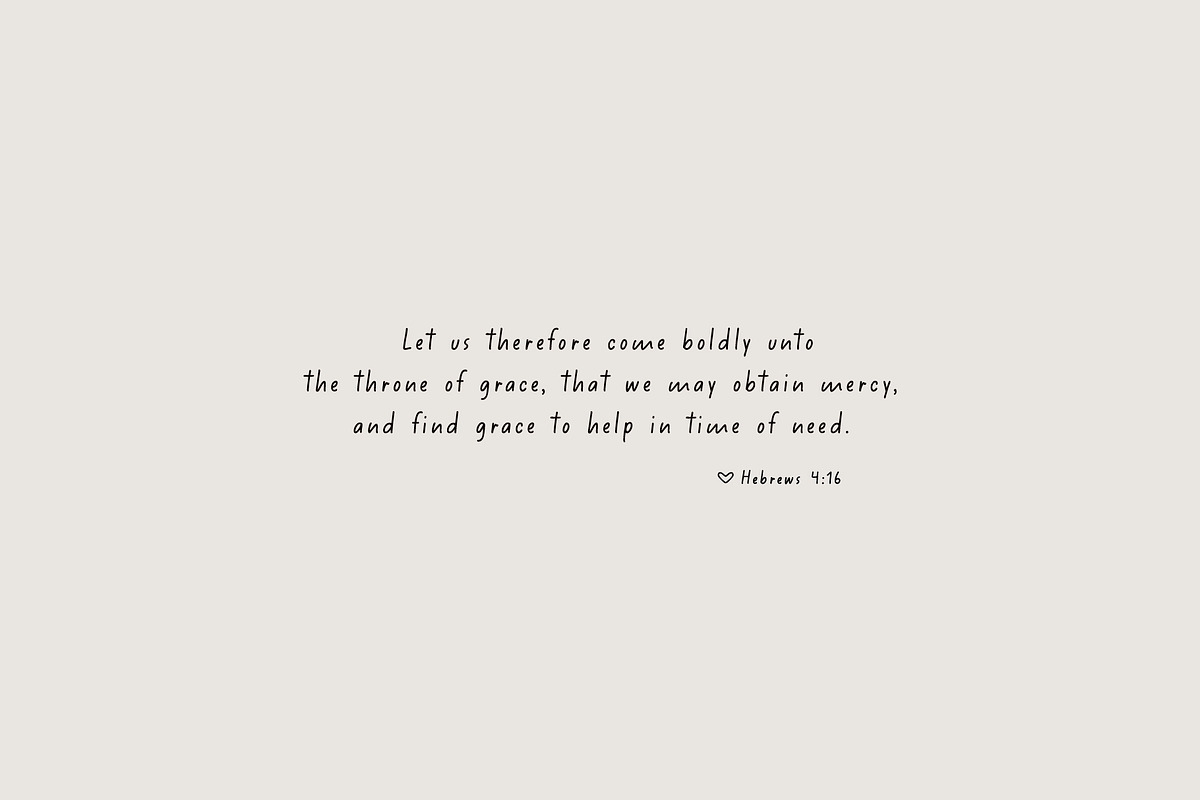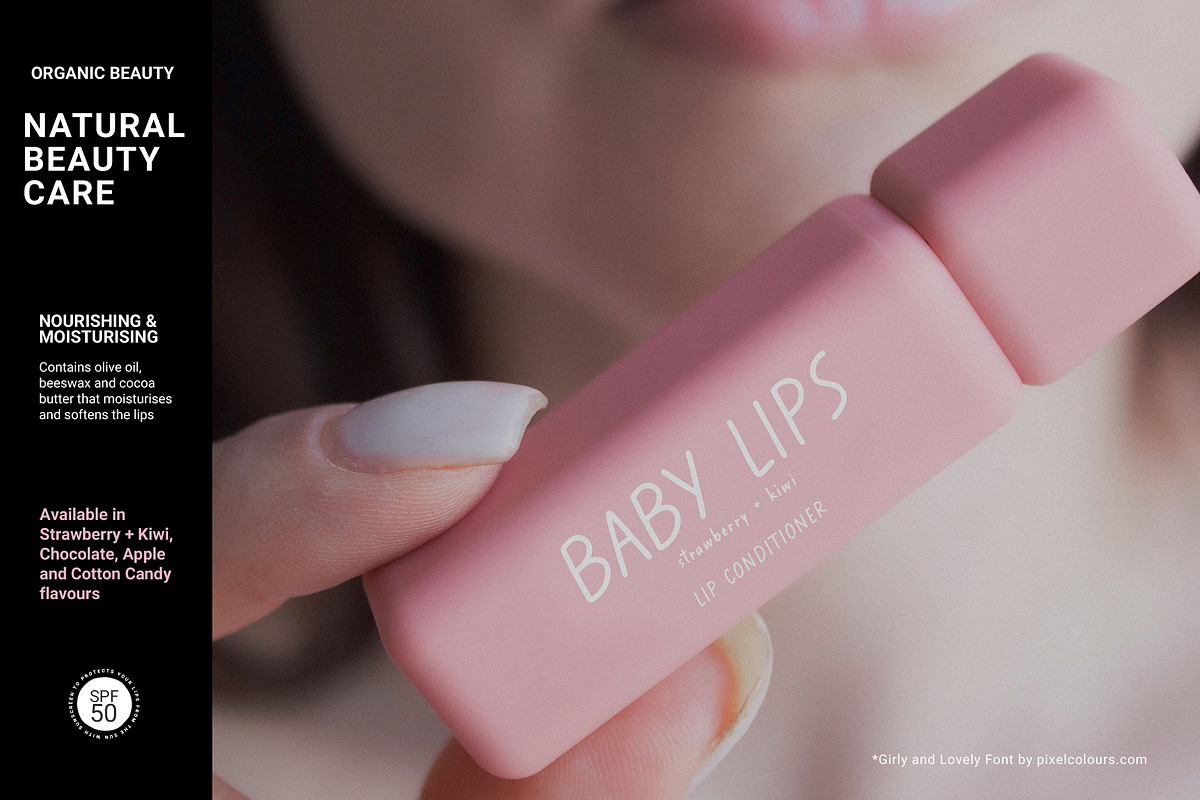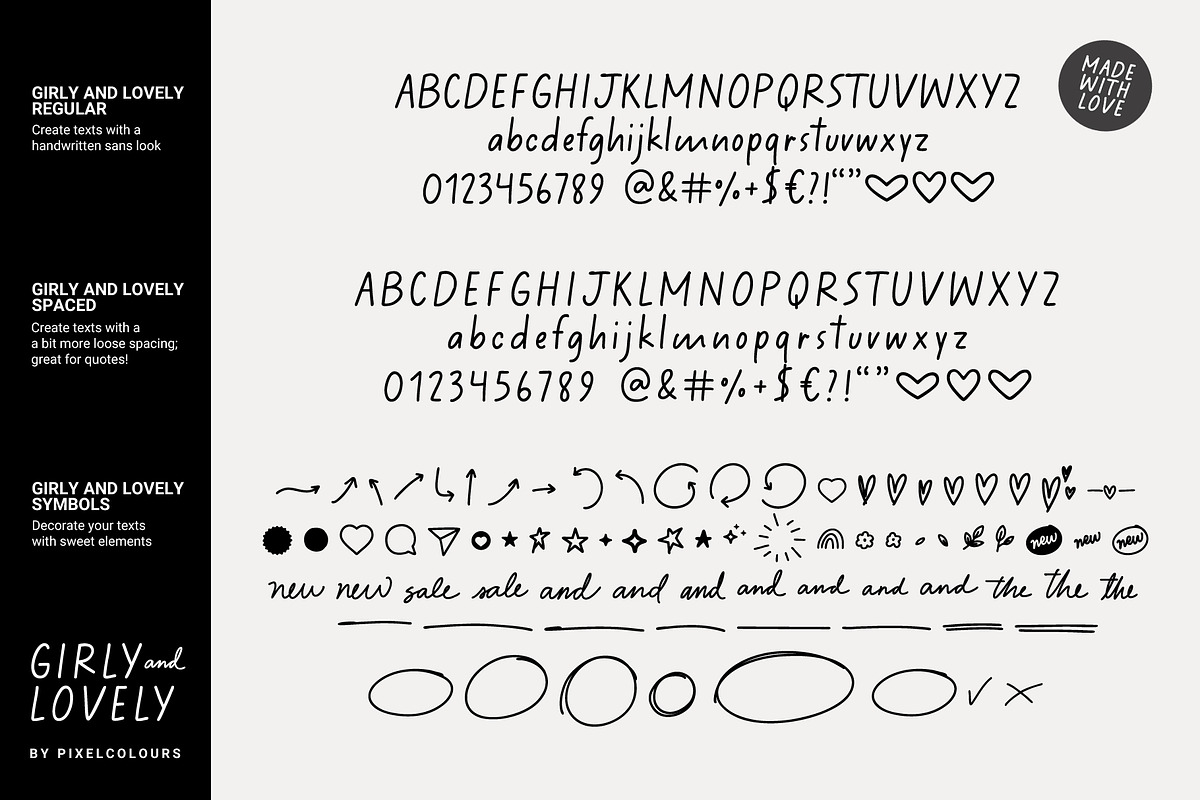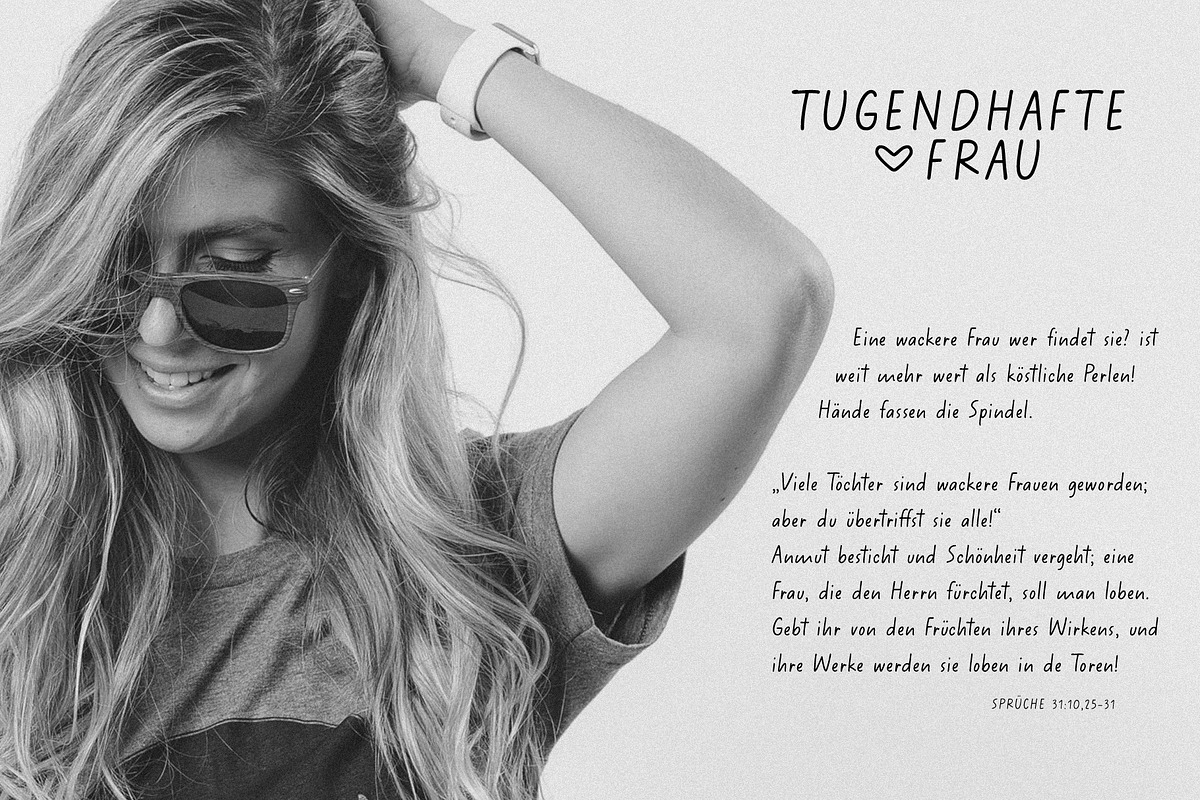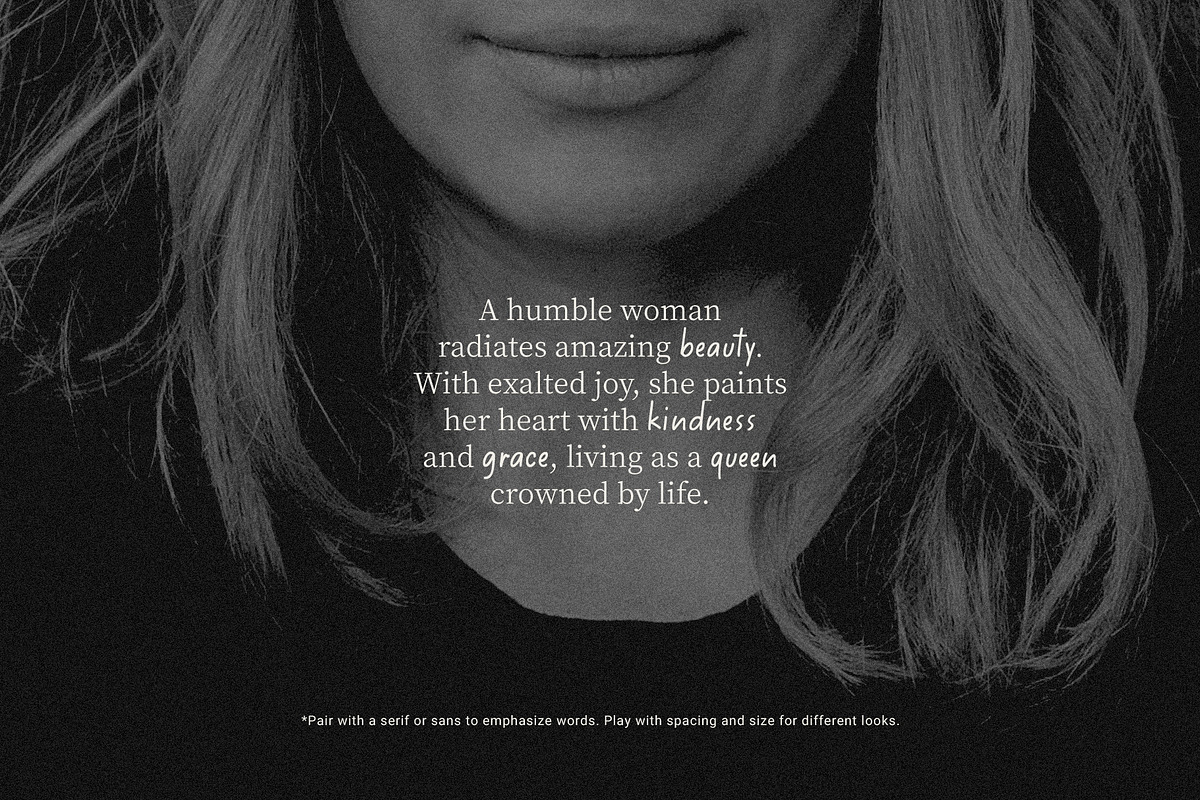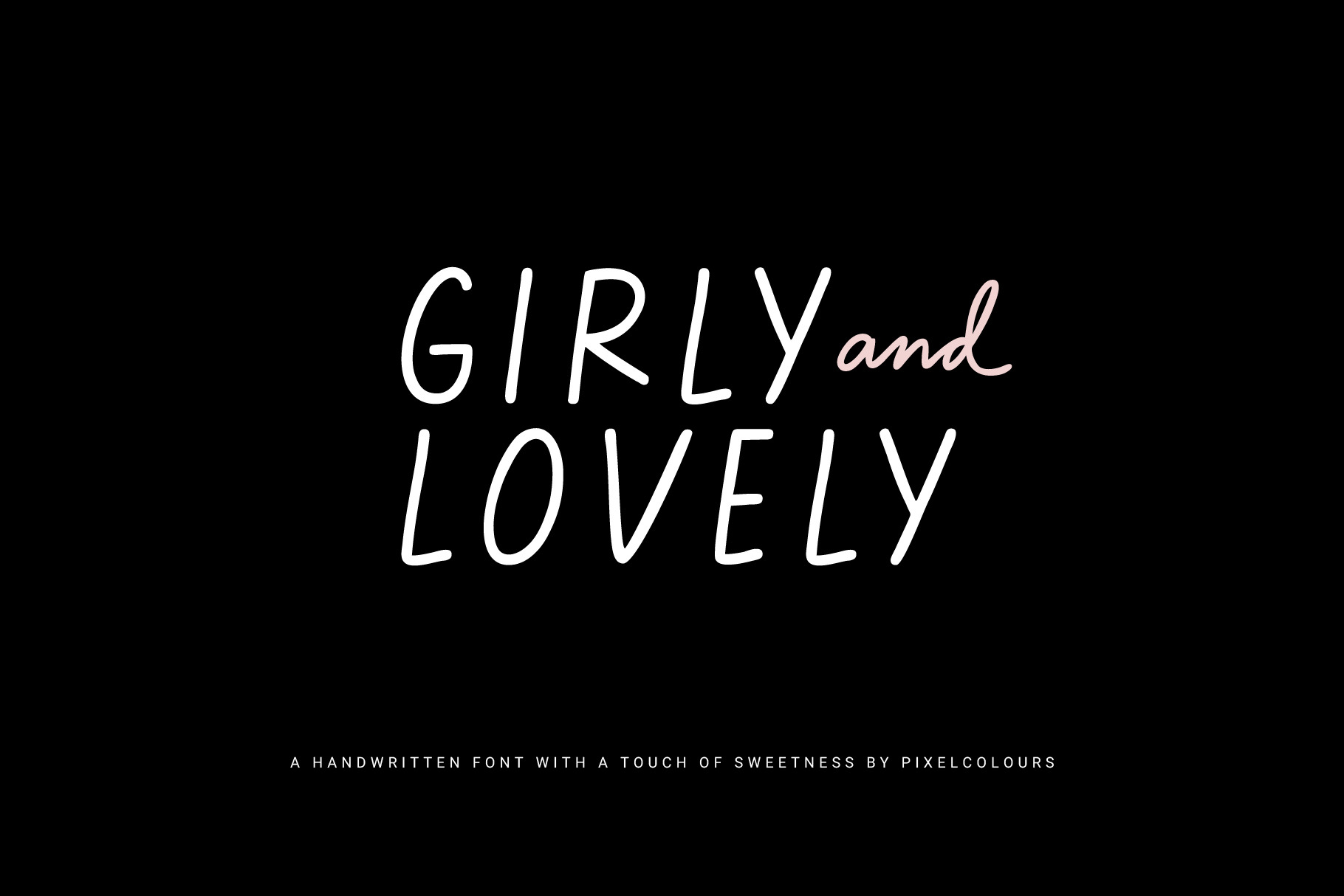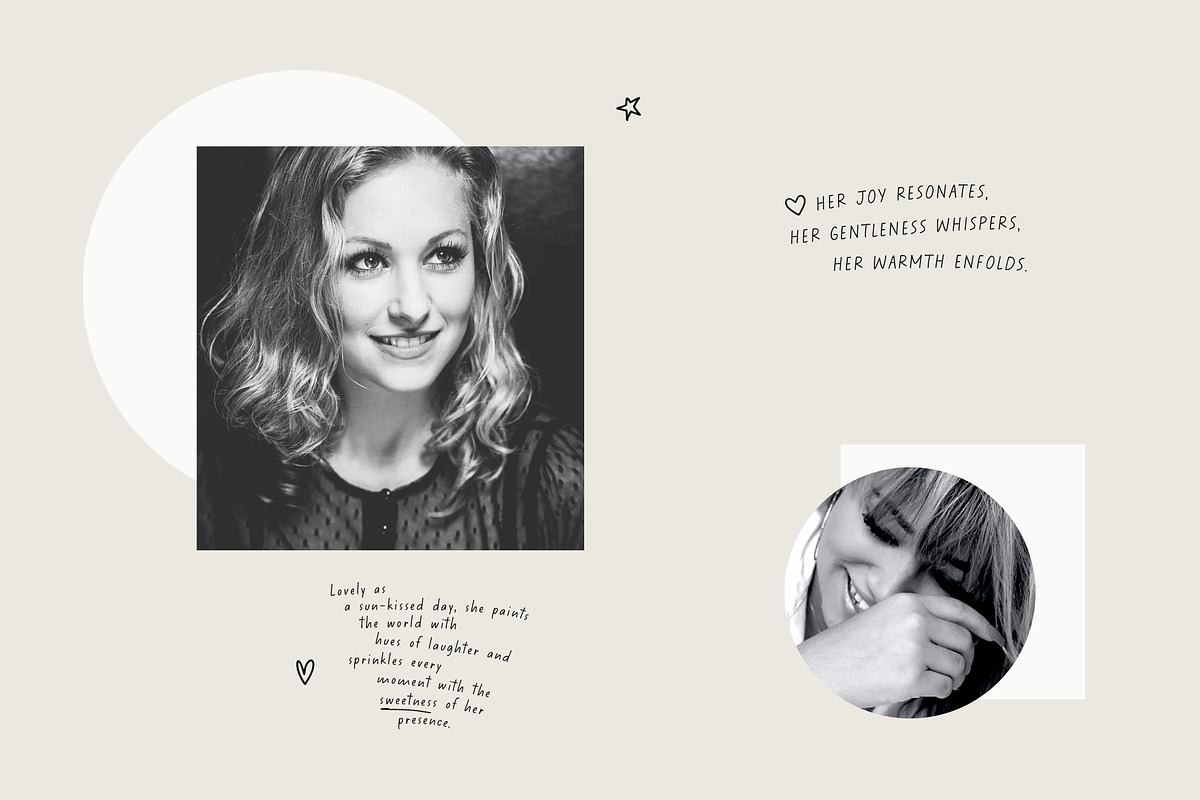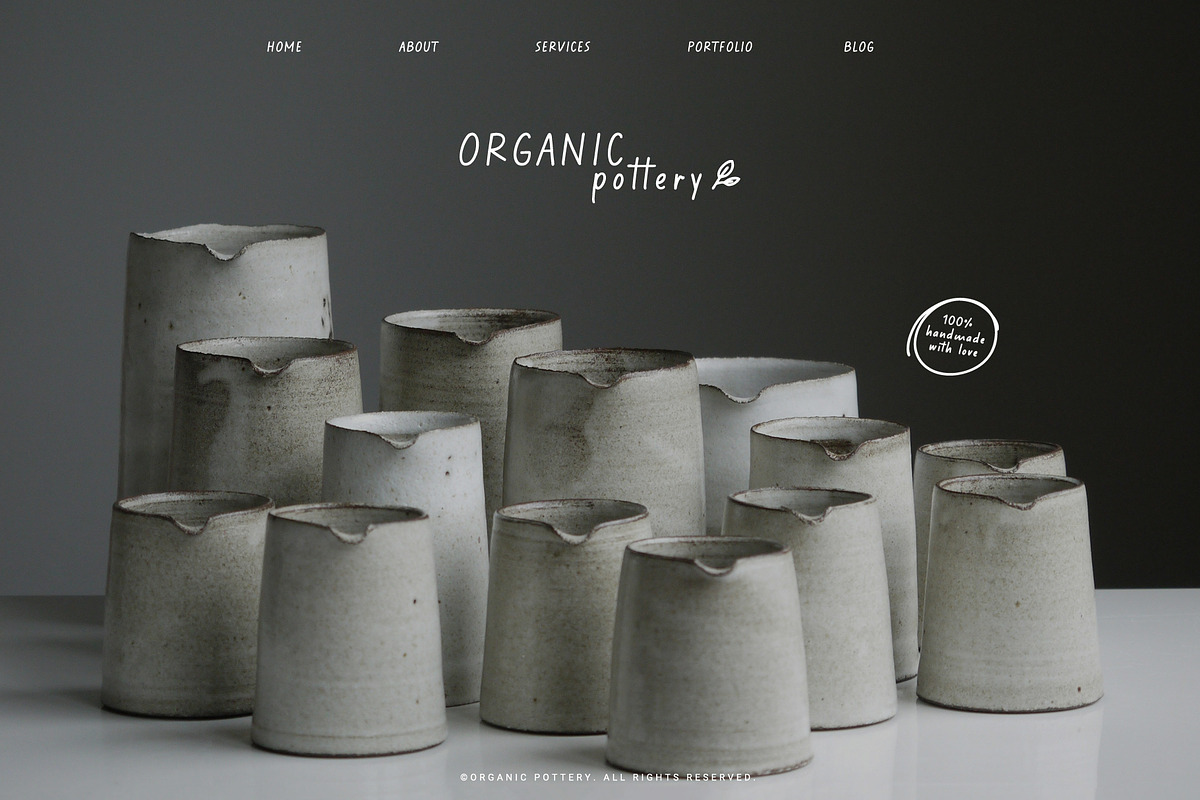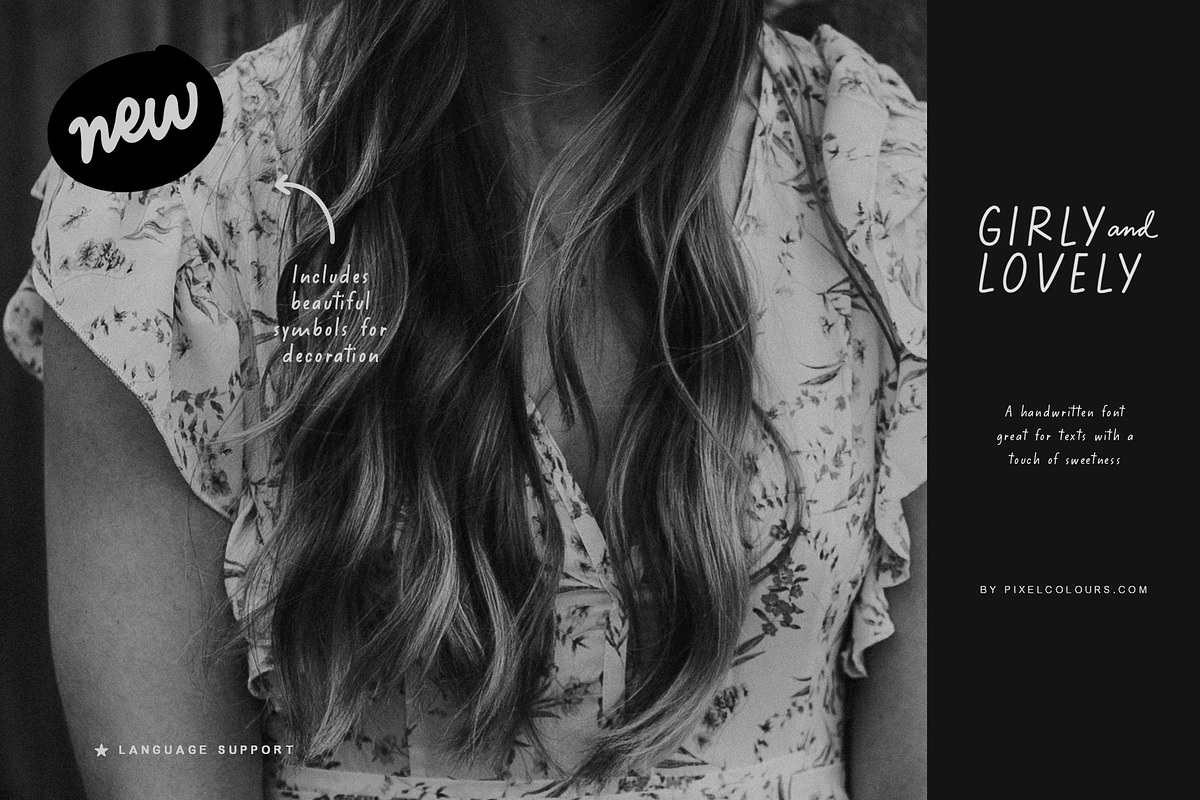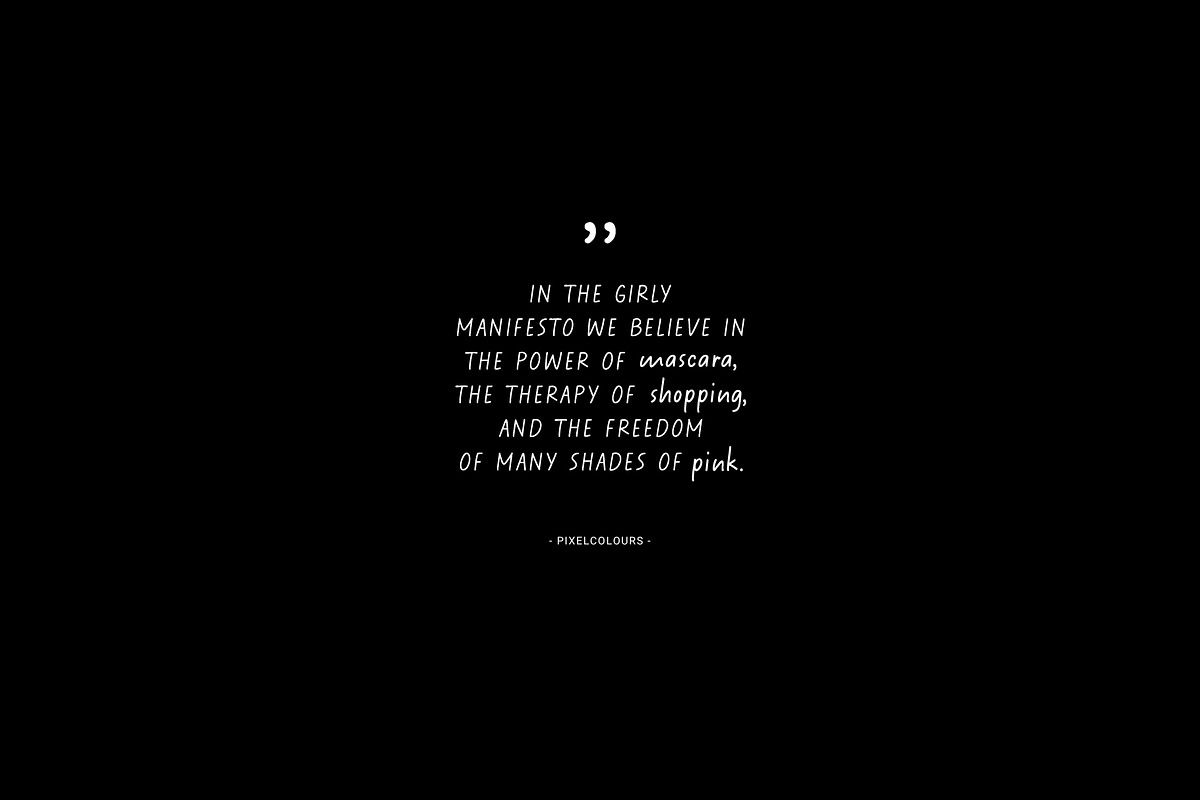
Handwritten Sans Serif Girly Font
Girly and Lovely Font is a handwritten sans serif font; a captivating blend of readability and feminine charm. It's legibility ensures effortless communication, while the added girly flair imparts a delightful, modern touch. Create eye-catching social media posts, invitations, ebooks, branding materials or any digital or print project with a unique handwritten style that balances professionalism and sweetness.
Girly and Lovely: the regular handwritten sans font
Girly and Lovely Spaced: the regular but with a bit more spacing great for smaller texts, looks great on quotes and notes
Girly and Lovely Symbols: decorative illustrations to give a sweet touch
Uppercase, lowercase, numbers and ligatures
Language support
Extra hearts in the regular font (¤\~∞ currency, ascii and infiny symbols)